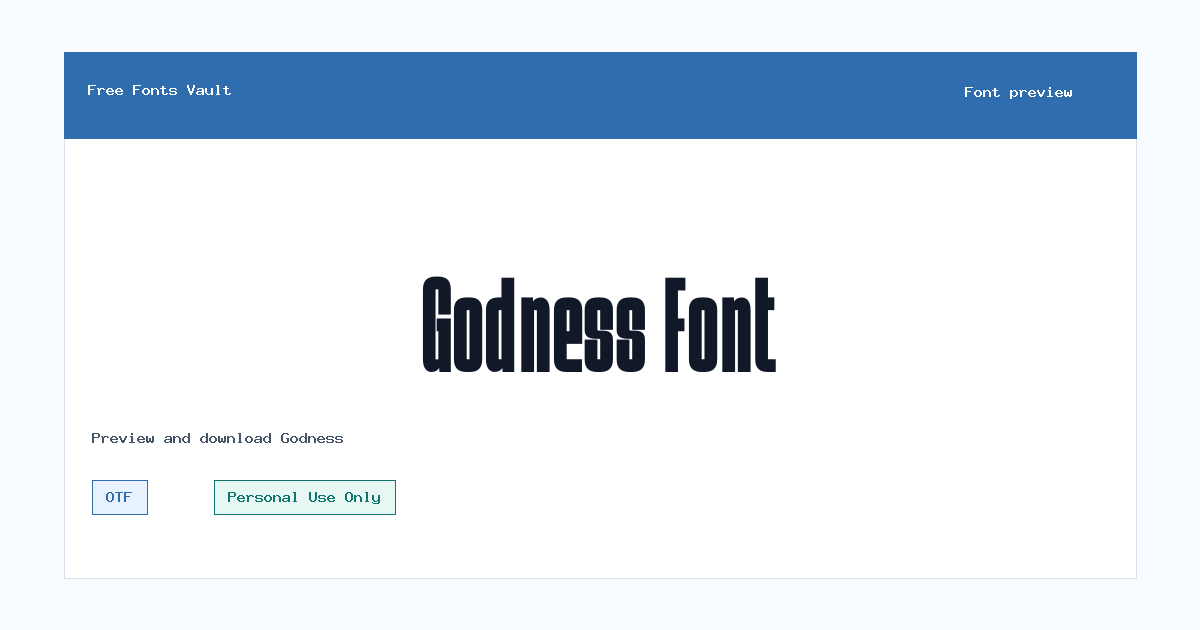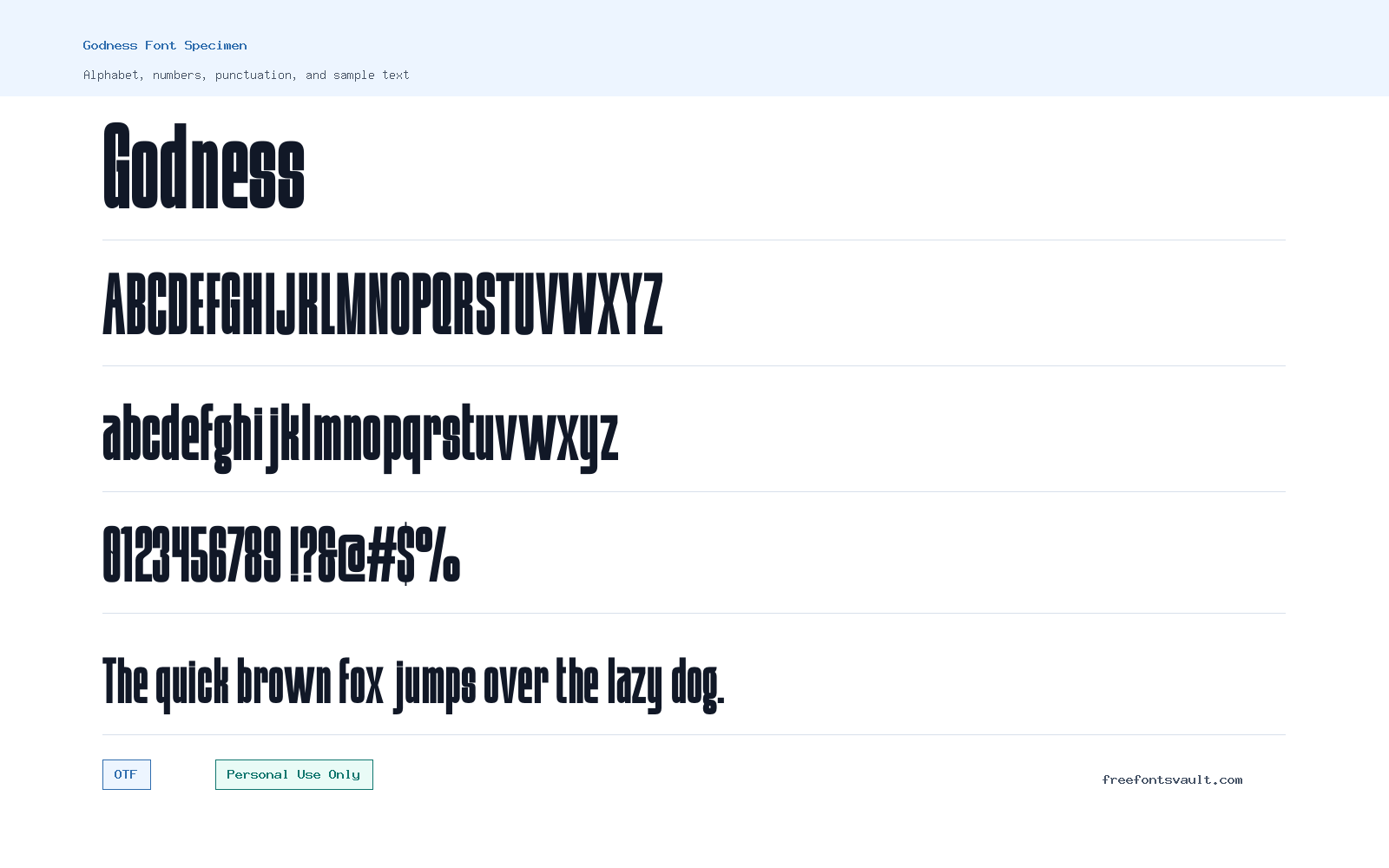
Godness
Godness font preview showing the family name
Godness Font
Godness font specimen showing alphabet, numbers, and sample text
Godness font.
Godness is a personal-use sans serif font from Funtype Co. It is offered as a regular OTF font file, making it easy to install, preview, and test in common design apps.
About Godness Font
Godness is a simple sans serif choice for visitors who want a clean font to try in personal design work. The family is represented by a regular style, so it is best tested first in the exact words you plan to use. Because there is only one listed weight, the font will work most reliably when the design does not depend on a full range of bold, light, or italic styles. Try it in short headings, display text, labels, social graphics, or personal mockups where one clear style is enough.
• Sans serif style suited to short display text, labels, and personal design drafts
• Single regular weight, useful when a clean one-style font is enough
• Good candidate for previewing names, titles, logos for personal mockups, and social graphics
• Personal posters, quotes, and social media graphics
• Short headings, labels, and title treatments
• Personal branding drafts and presentation mockups
• Testing clean sans serif text in design previews
What style of font is Godness?
Godness is described as a sans serif font with a regular style.